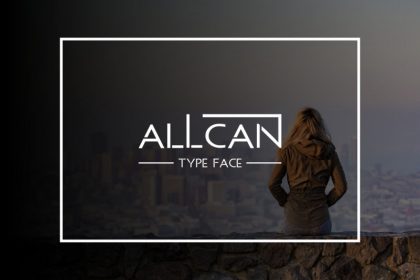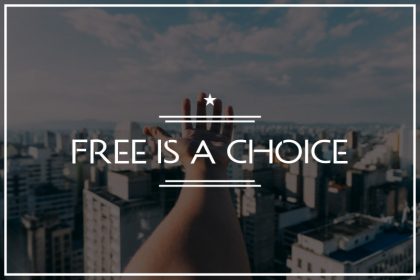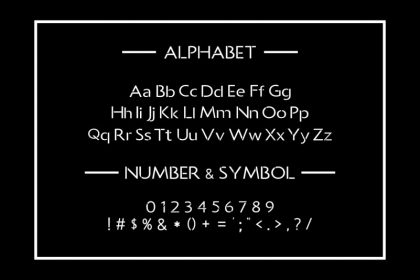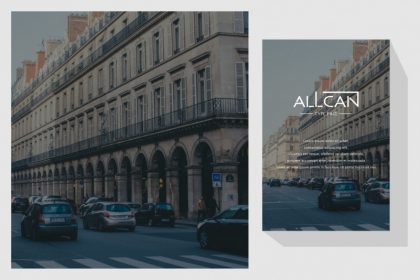
ALLCAN Typeface
Hi Everyone! Introducing our newest font : ALLCAN Typeface! This is a new modern font. Will be Great for branding, logo, stationery, business card, etc
Allcan Modern Display Font